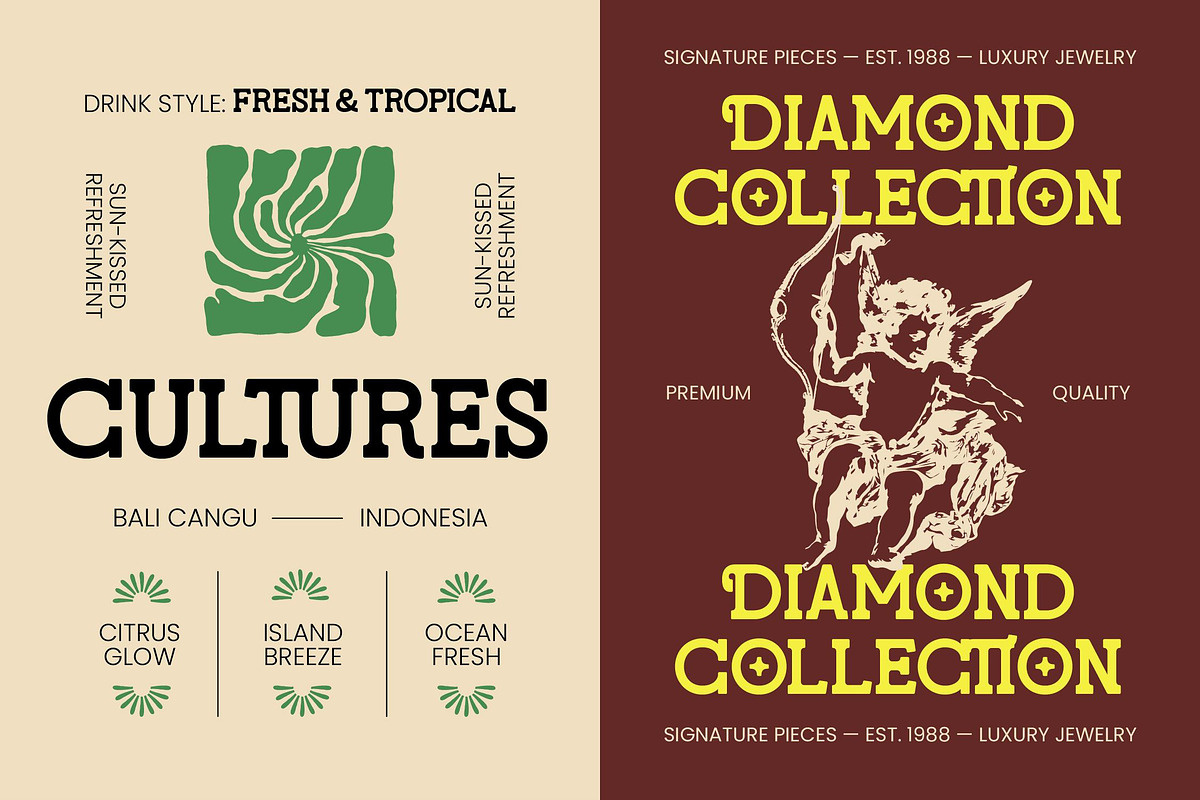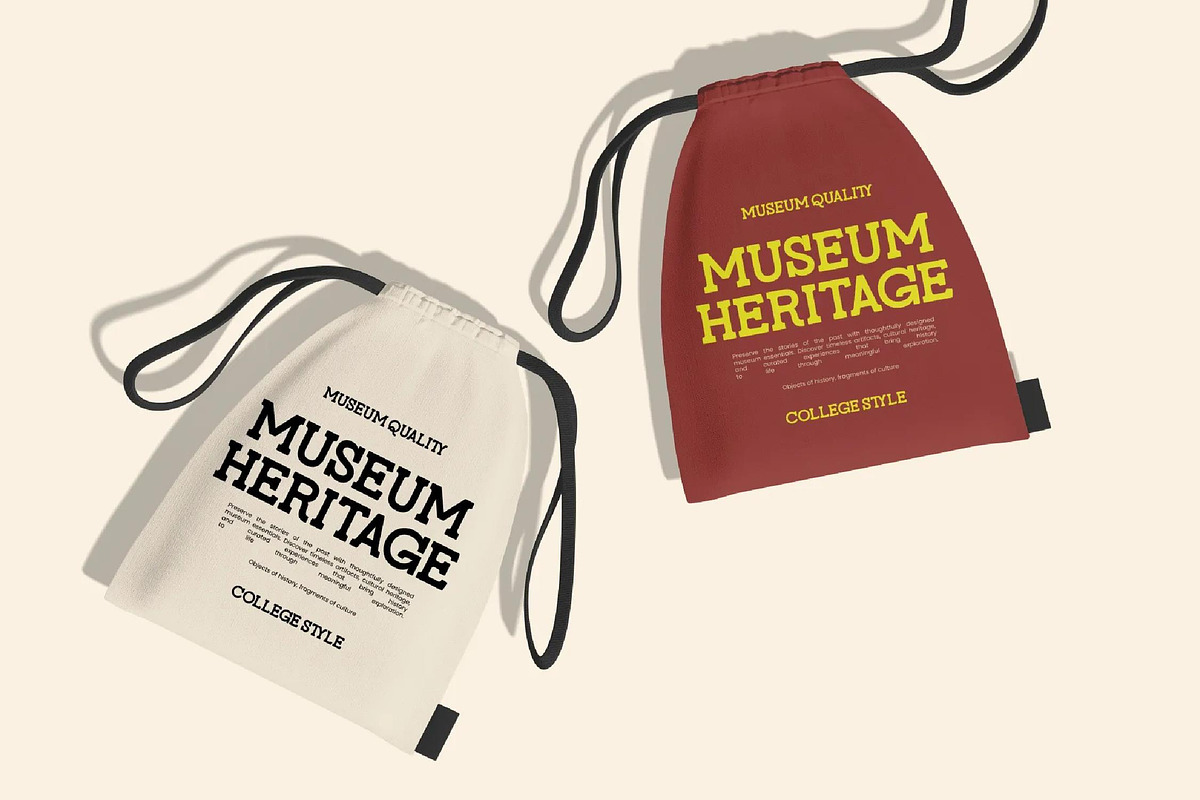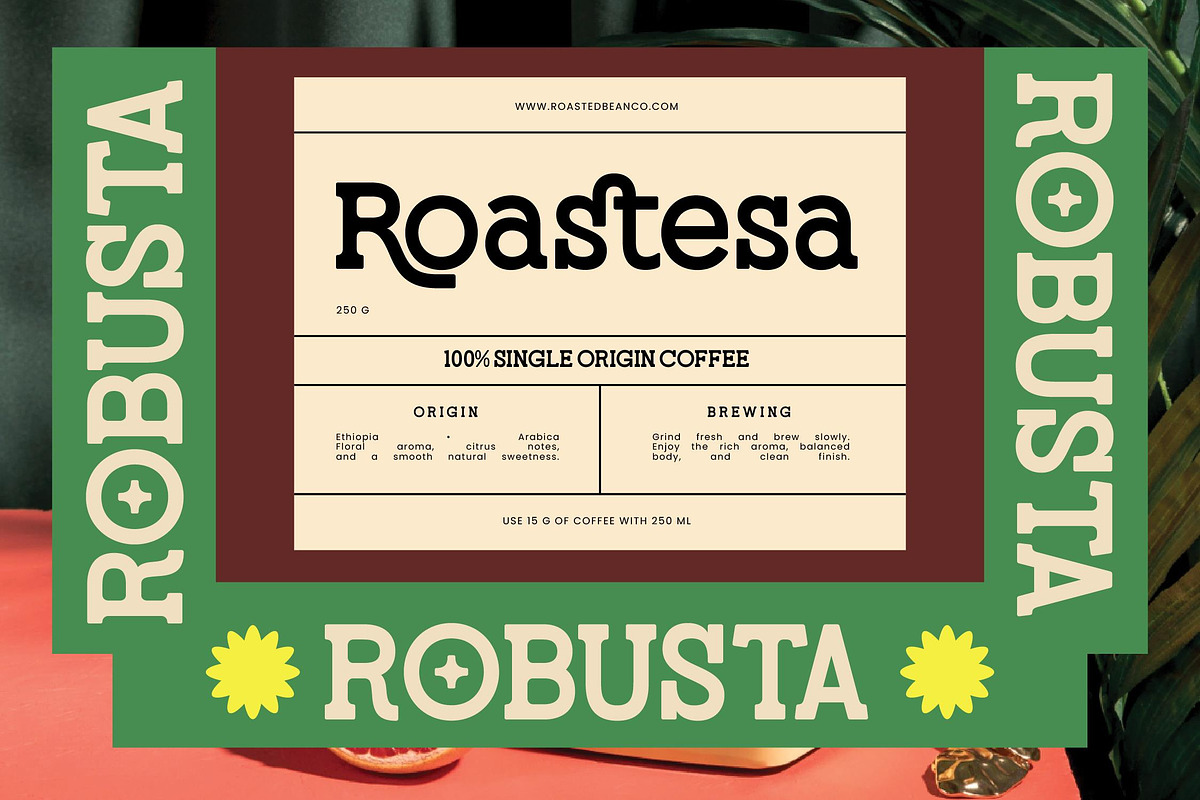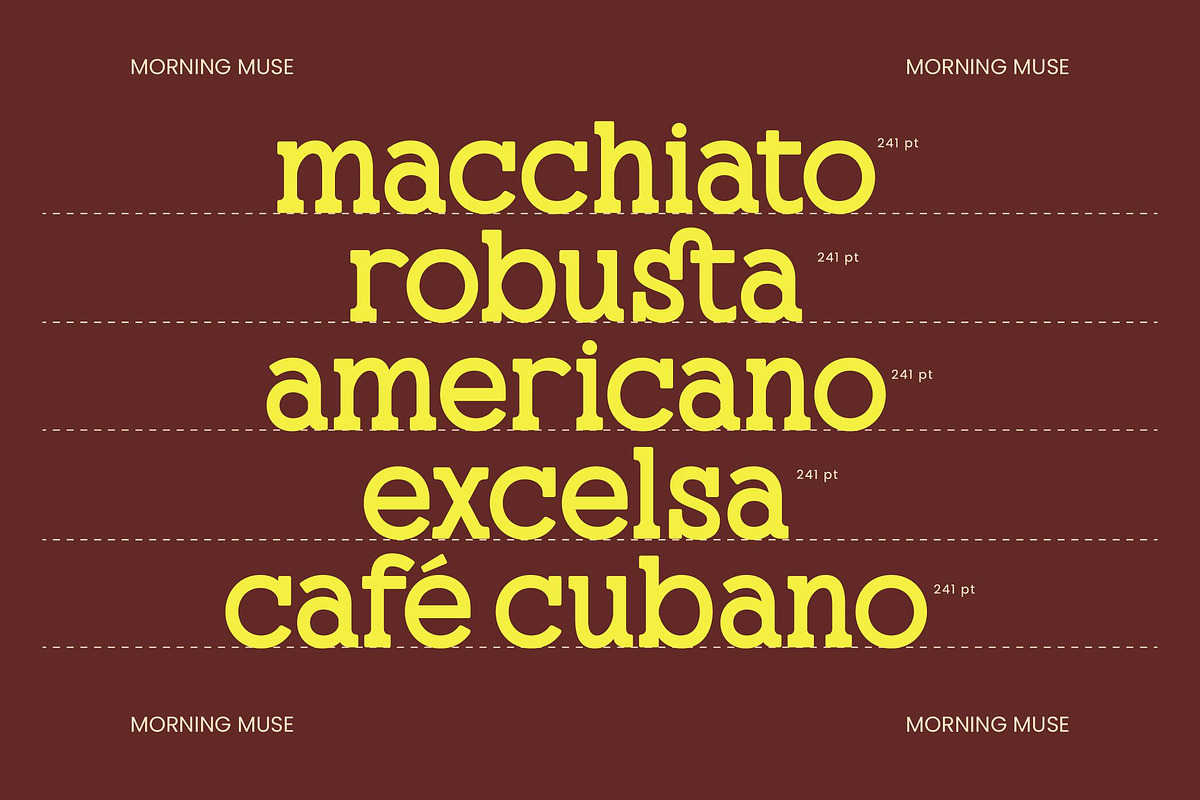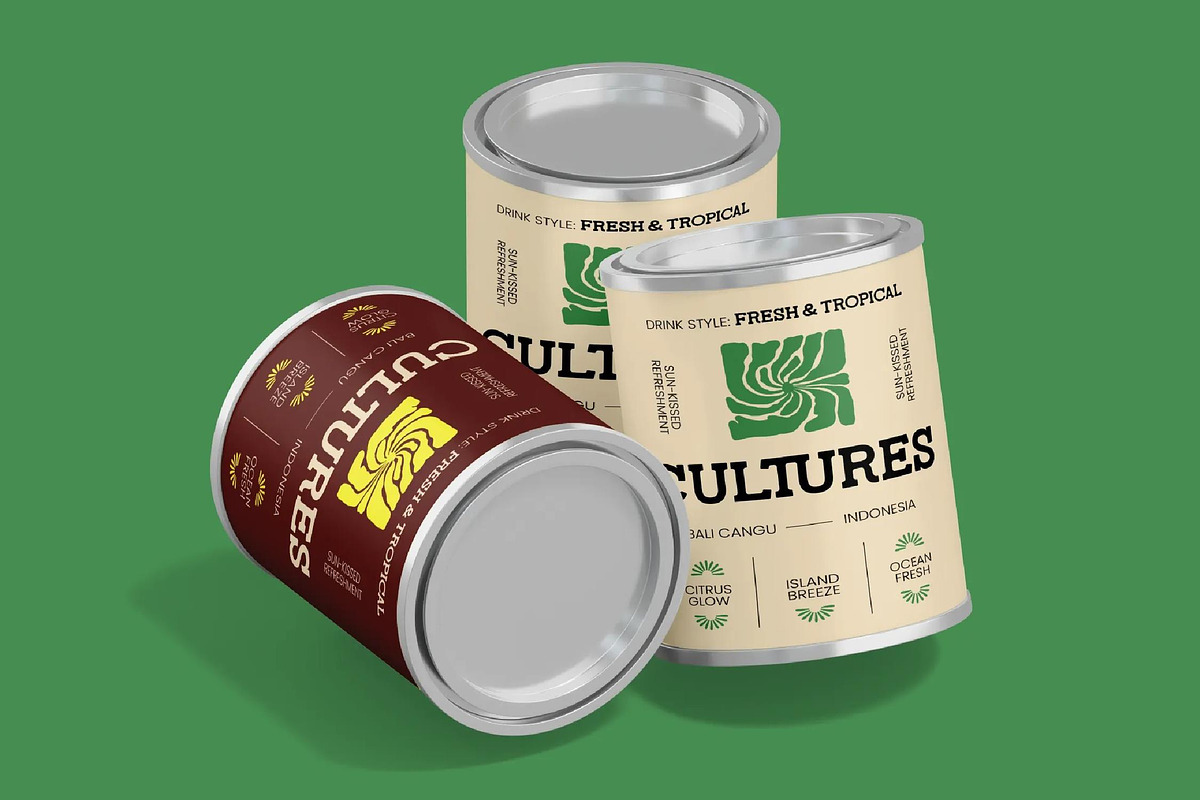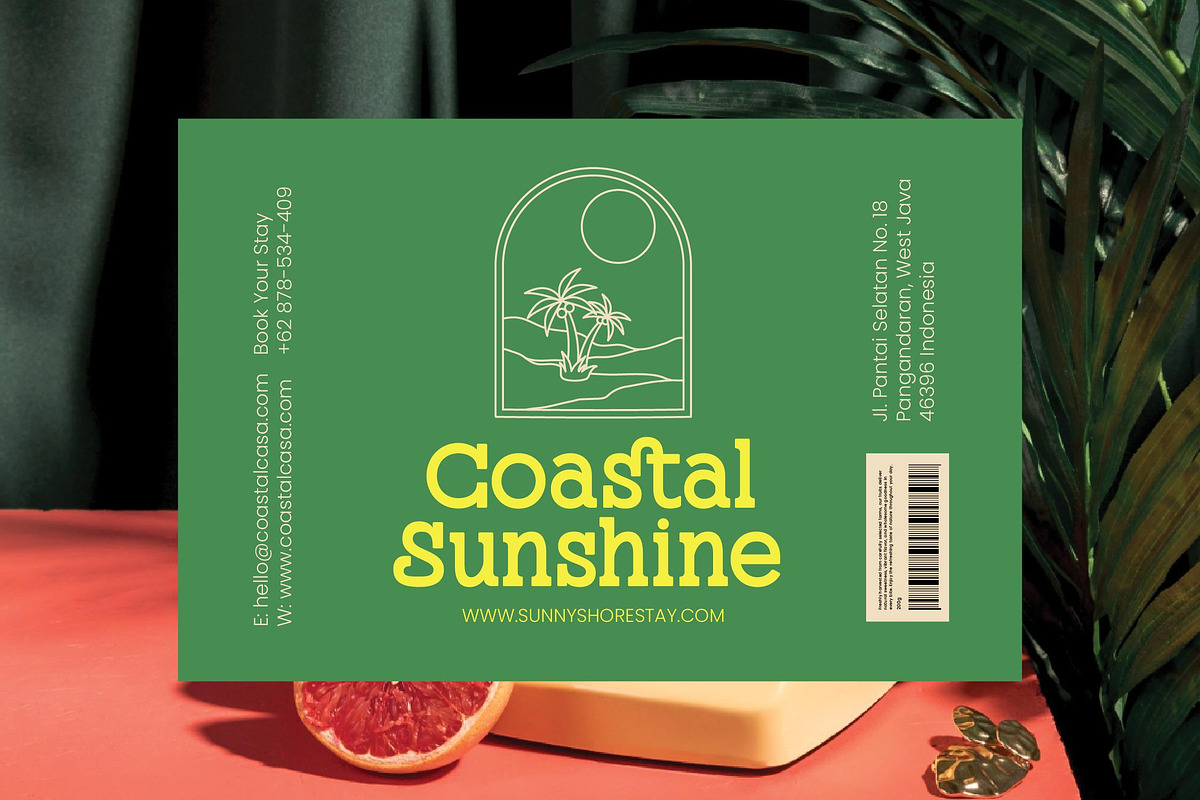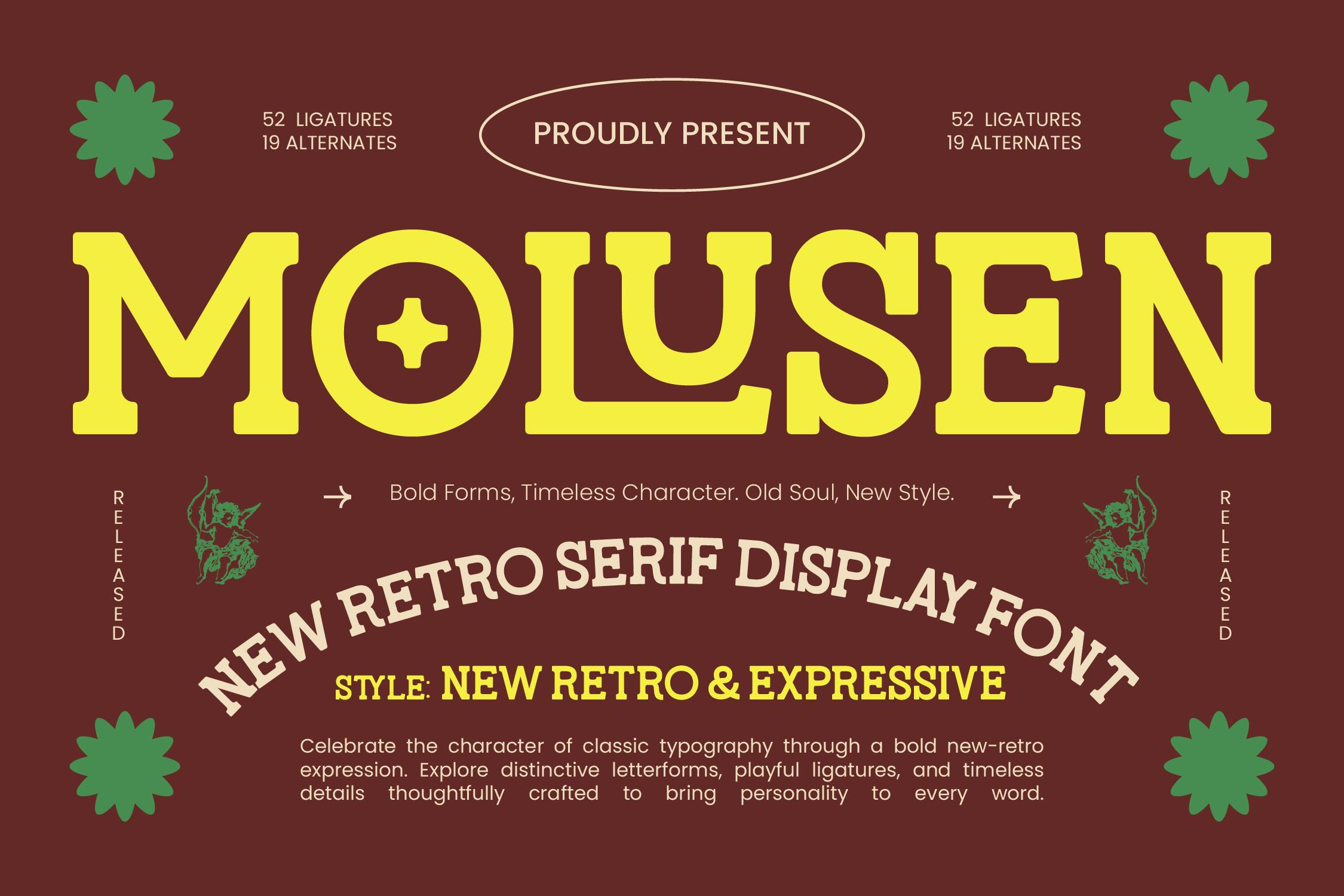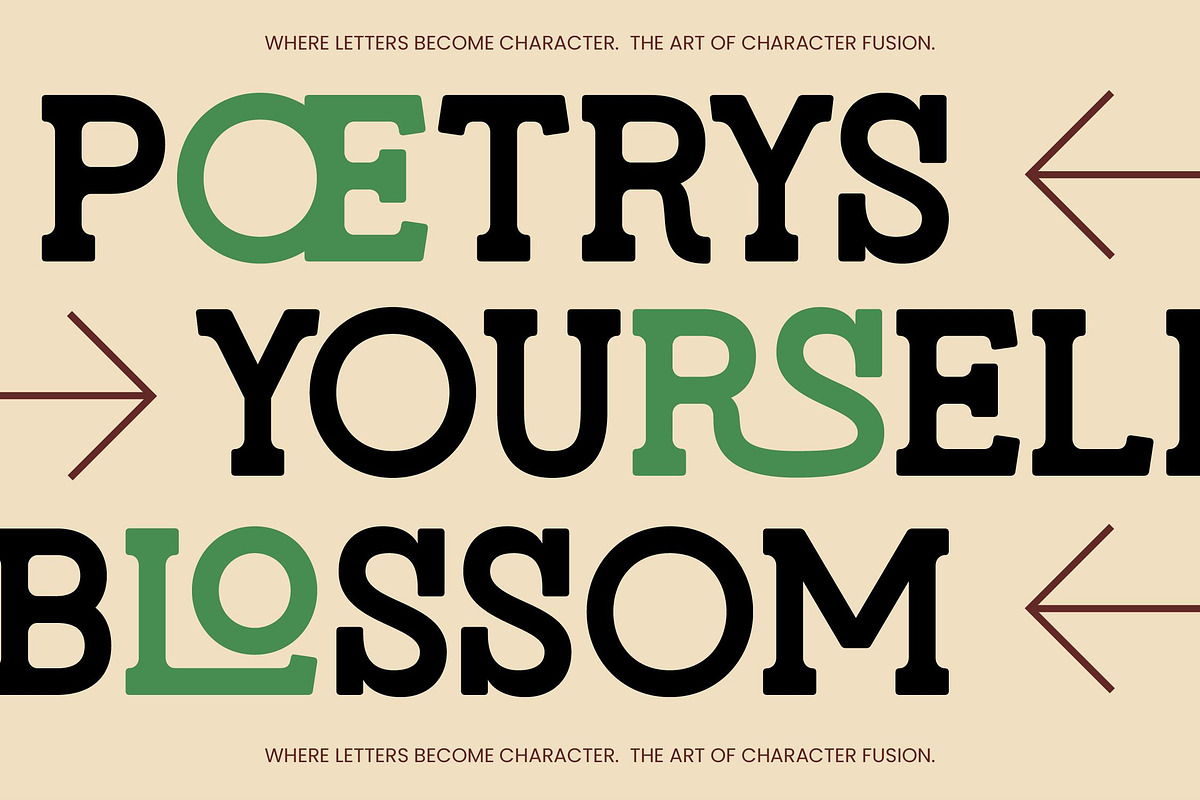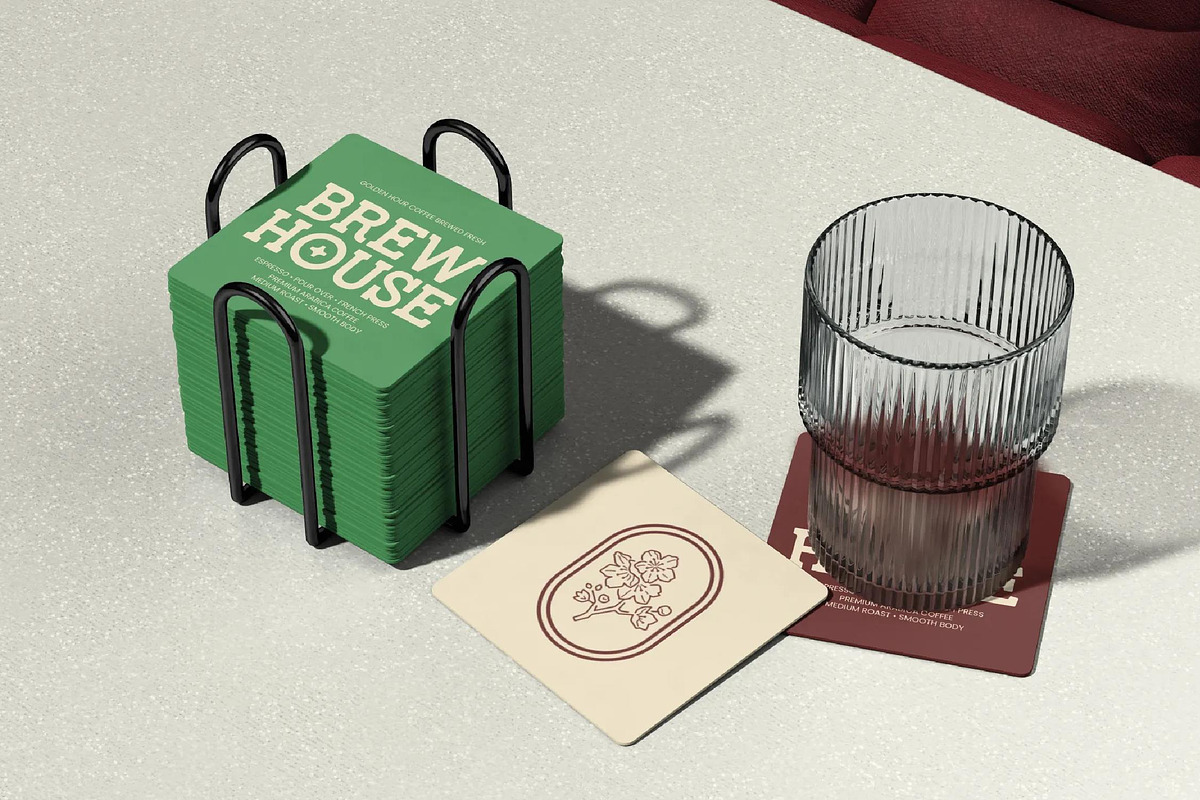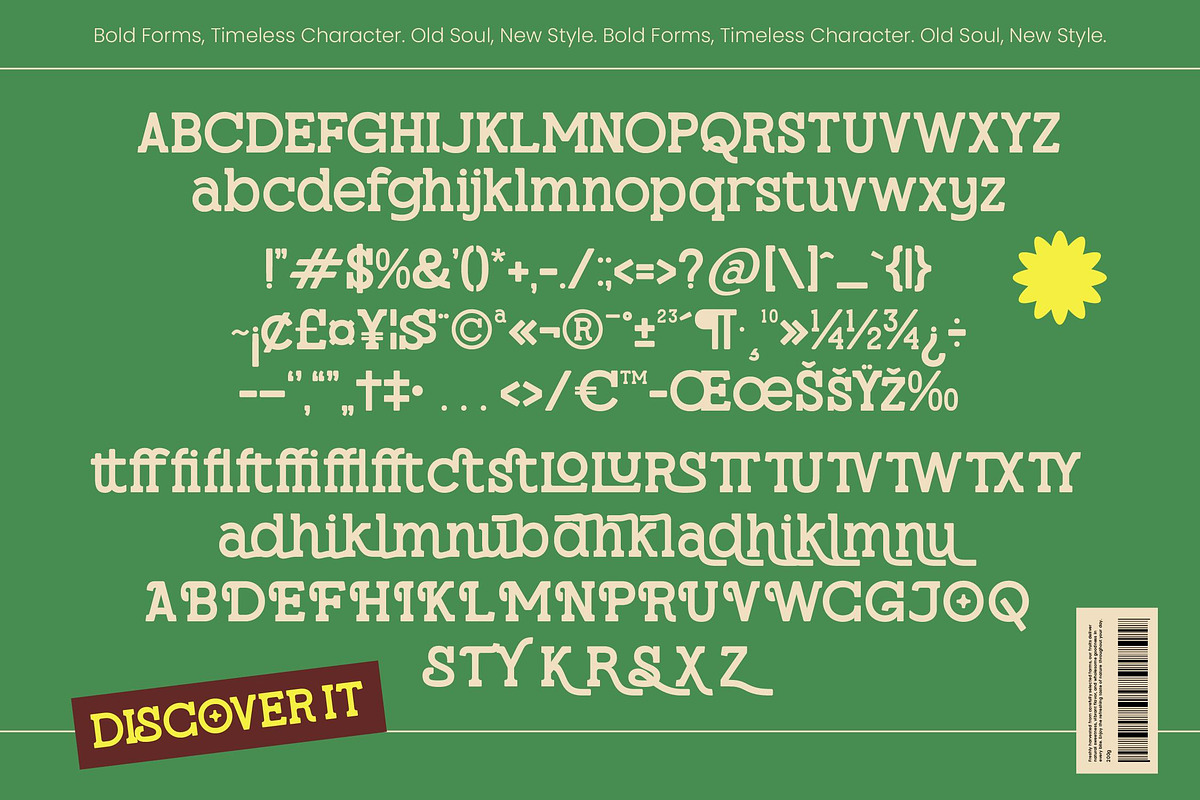
Molusen New Retro Serif Display Font
Molusen – New Retro Serif Display Font
Elevate your design projects with a bold and expressive typographic masterpiece that redefines the new-retro aesthetic. Molusen – New Retro Serif Display Font captures the essence of classic letterforms while injecting a vibrant, contemporary personality into every character. Its high-contrast strokes and robust serifs make it an ideal choice for creators looking to bridge the gap between vintage charm and modern sophistication.
Precision craftsmanship meets creative flexibility through a vast array of OpenType features and stylistic flourishes. Featuring 52 unique ligatures and 19 alternates, Molusen – New Retro Serif Display Font provides designers with the tools to craft bespoke typography that stands out in a crowded market. With its extensive multilingual support, Molusen – New Retro Serif Display Font adapts seamlessly across global markets, making it incredibly versatile for international projects and diverse communication needs.
Maximize your brand's presence by utilizing a typeface specifically engineered for high-impact visual communication. This font is perfectly suited for luxury branding, high-end packaging design, and dynamic editorial layouts where personality is paramount. Whether you are developing iconic logotypes, compelling poster designs, or expressive social media graphics, Molusen – New Retro Serif Display Font ensures your message is delivered with unrivaled authority and style.
Invest in a premium design asset that offers both aesthetic longevity and functional excellence for your creative toolkit. By integrating Molusen – New Retro Serif Display Font into your workflow, you gain a distinctive edge in visual storytelling and brand identity development. This typeface is the ultimate solution for professional graphic designers who demand a sophisticated display font that guarantees an unforgettable impact on any target audience.